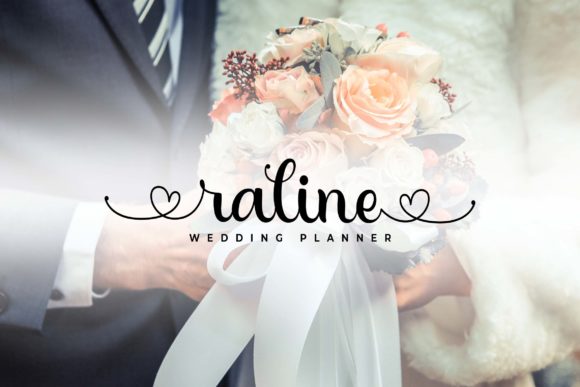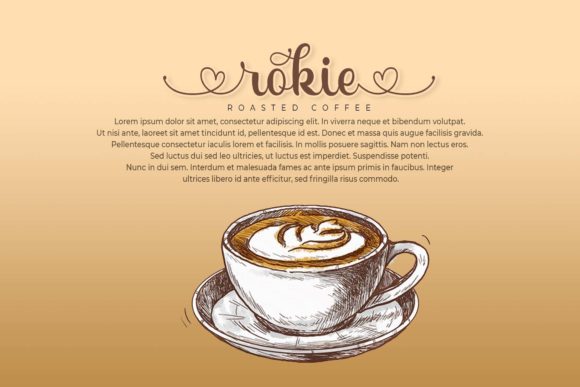
Donna Donnie Font
db-ku.com - Script & Handwritten -- Donna Donnie is chic, romantic, and cute. It’s a beautiful combination of timeless elegance and authentic calligraphy.